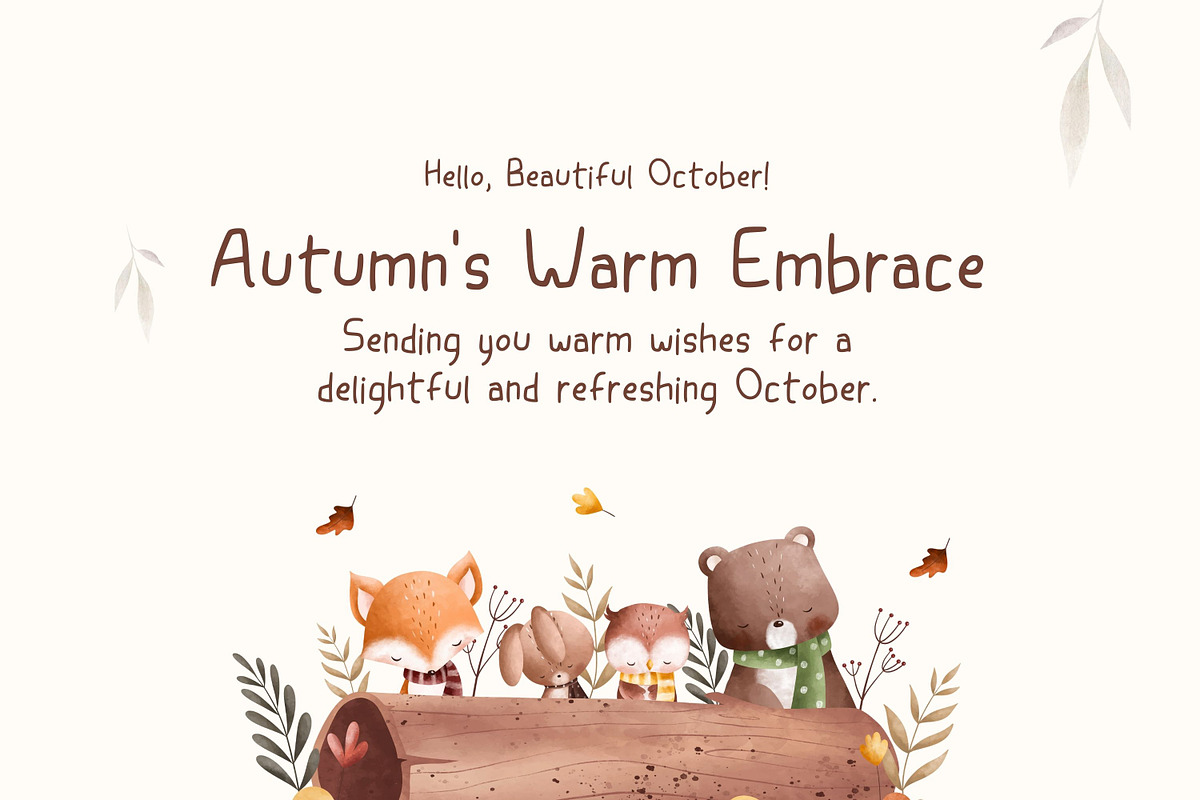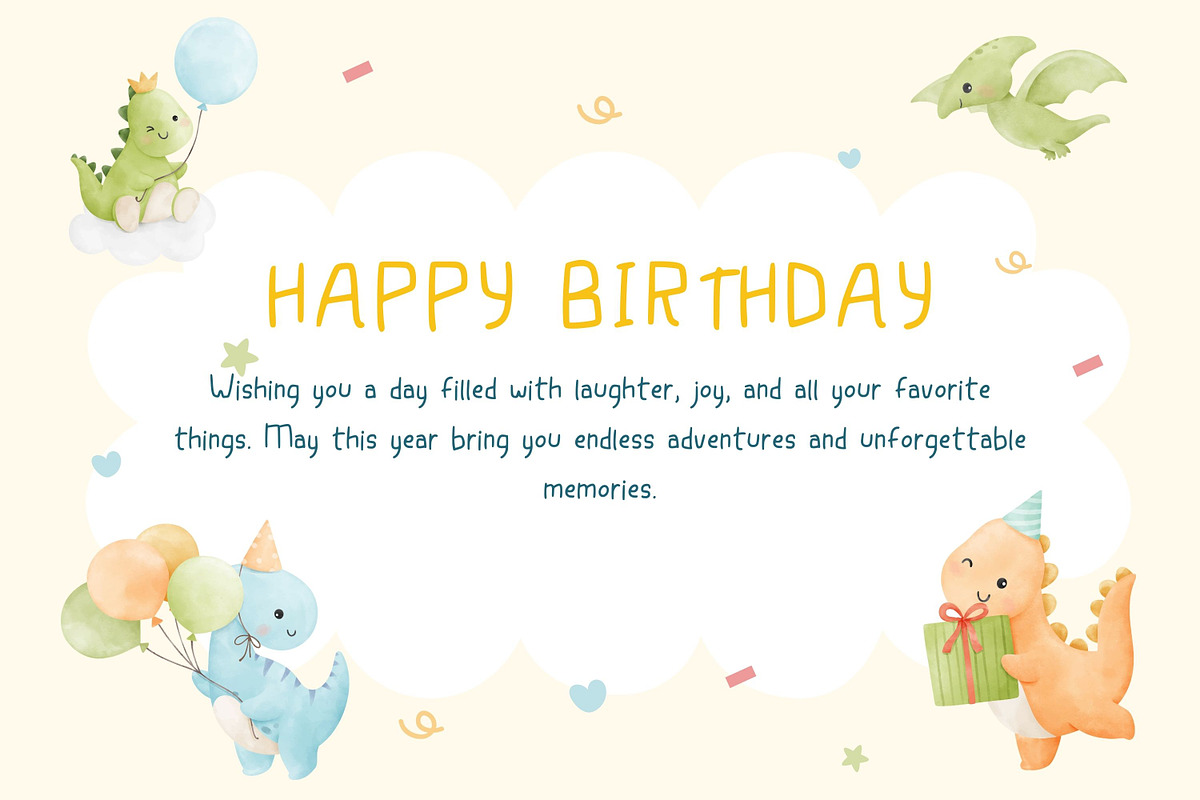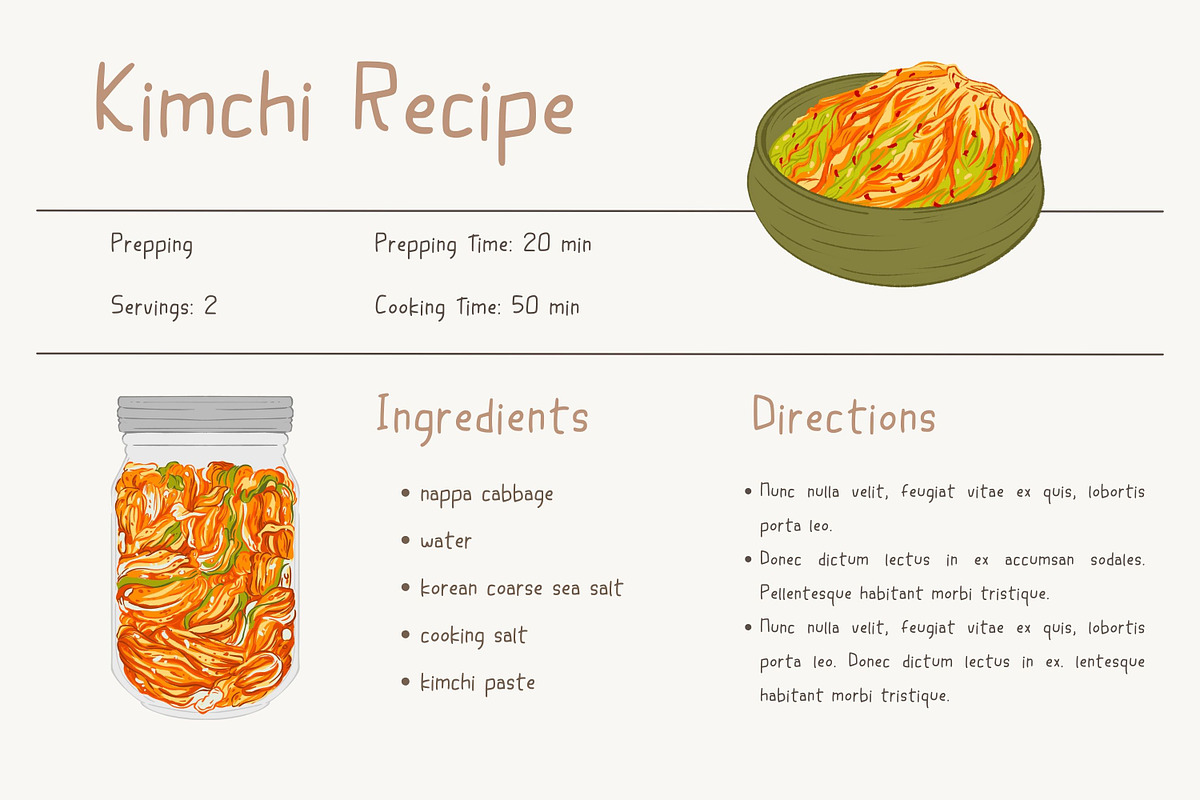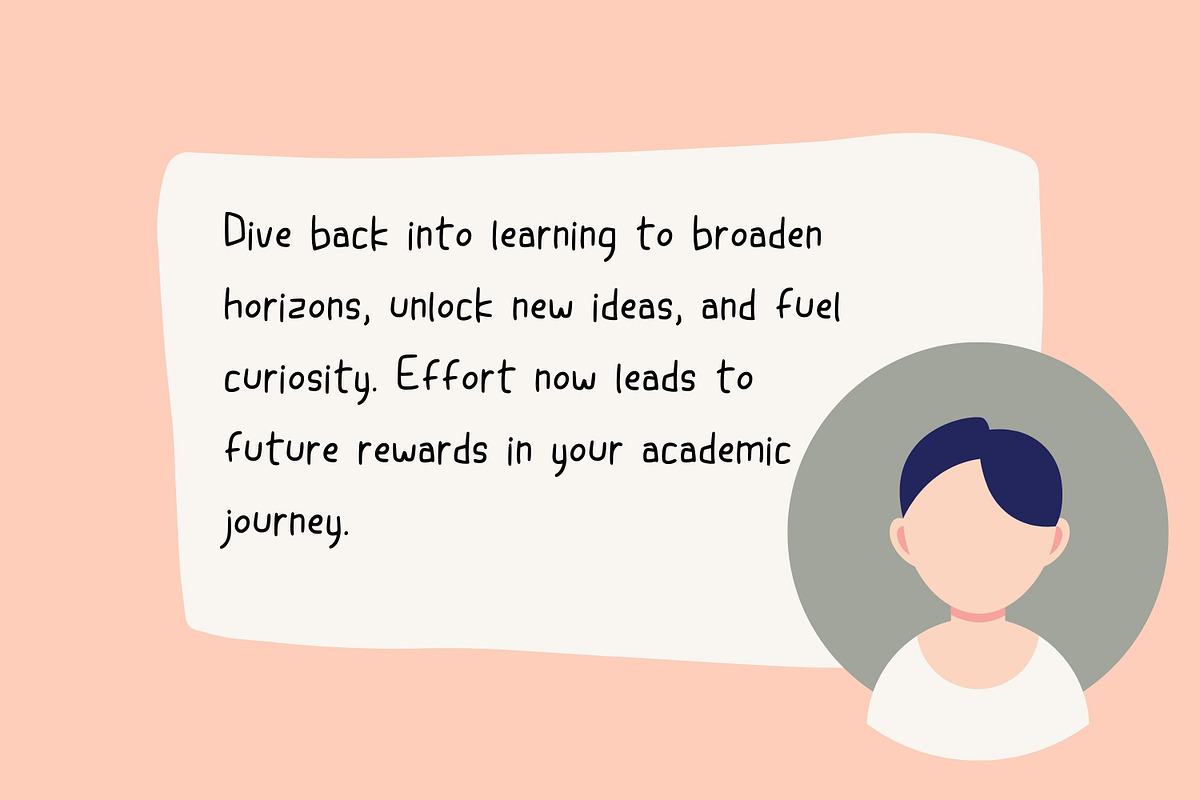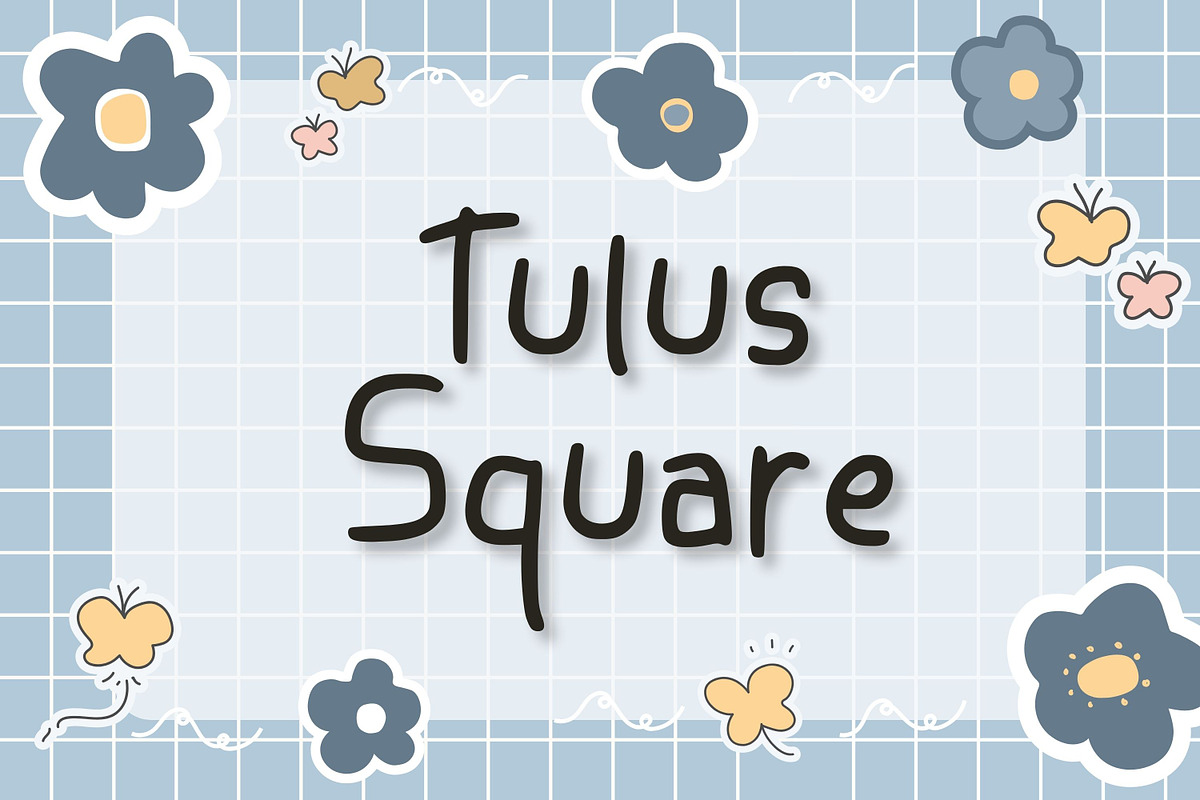
Tulus Square
Introducing Tulus Square, a charming and sleek handwriting font. Exuding cuteness while carrying a distinct coolness, it perfectly complements creative escapades and extensive text projects. This inventive script lends an engaging visual rhythm to your designs, ensuring both legibility and aesthetic appeal. Unleash your creativity with Tulus Square.